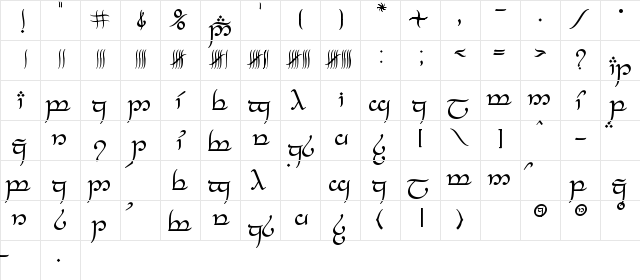
Tengwar Feanor Regular
Design Context for Tengwar Feanor Typeface
Tengwar Feanor offers clean, dependable letterforms without strong stylistic allegiance, making it a practical choice for designers who need flexibility.